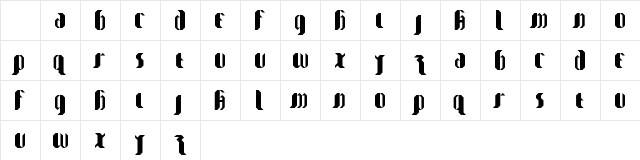
Complete my_goth_is better glyph index. Displaying only characters natively supported by my_goth_is better font.
my_goth_is better is a composed and adaptable typeface that performs quietly and consistently across a wide range of design contexts.